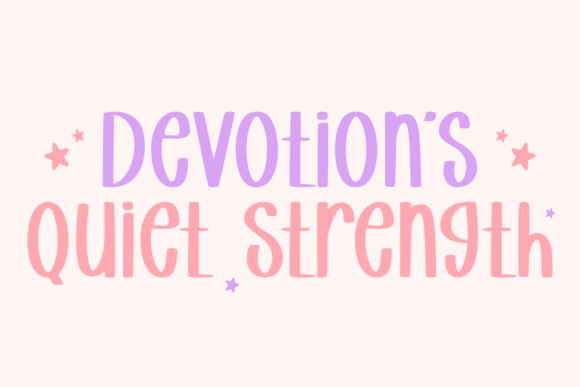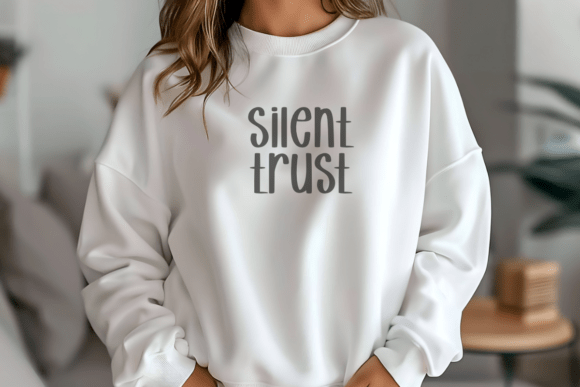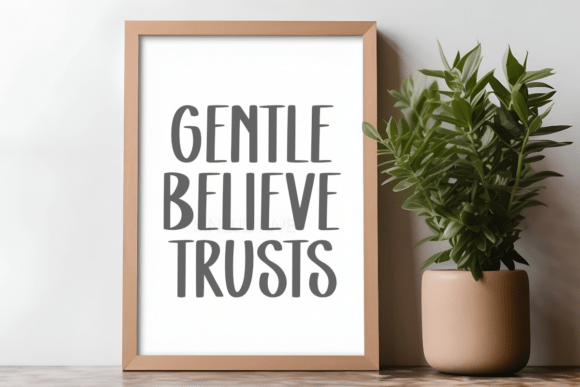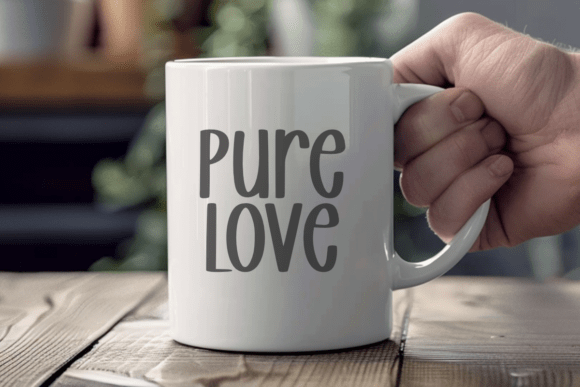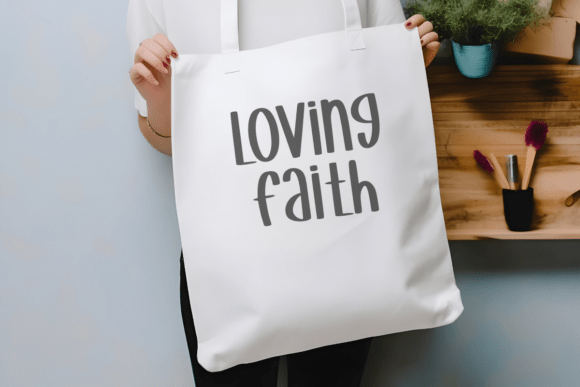
Introducing Blindly Beloved Font: The Perfect Handwritten Sans Serif for Creative Projects
Are you a designer, crafter, or DIY enthusiast looking for a fun and cute font to add a personal touch to your projects? Look no further than Blindly Beloved, a charming handwritten sans serif font that’s perfect for a wide range of creative applications. In this article, we’ll explore the features and benefits of Blindly Beloved, and show you how to make the most of this versatile font.
What is Blindly Beloved Font?
Blindly Beloved is a carefully crafted handwritten sans serif font that’s designed to bring a touch of whimsy and personality to your projects. Its clean and simple lines make it easy to read, while its playful curves and irregularities give it a delightfully human feel. Whether you’re creating memos, journals, notes, or planners, Blindly Beloved is the perfect choice for adding a dash of fun and creativity.
Blindly Beloved is an incredibly versatile font that can be used for a wide range of projects, including:
- Memos and notes
- Journals and planners
- Interior KDPs and cards
- Teacher and greeting cards
- Invitations and scrapbooks
- Paper and diary entries
- Printable notes and low-content books
- Daily planners and notepads
- Calendars and to-do lists
- Sheets and workbooks
- Monthly and weekly planners
- Journal templates and notebook paper
- KDP interiors and templates
Why Choose Blindly Beloved Font?
So why should you choose Blindly Beloved for your next project? Here are just a few reasons:
- Unique and eye-catching: Blindly Beloved is a one-of-a-kind font that’s sure to grab attention and add a touch of personality to your projects.
- Easy to read: Despite its playful curves and irregularities, Blindly Beloved is incredibly easy to read, making it perfect for body text and longer passages.
- Versatile: Blindly Beloved can be used for a wide range of projects, from digital documents to print materials.
- Cute and fun: Let’s face it – Blindly Beloved is just plain cute! It’s the perfect choice for adding a touch of whimsy and fun to your projects.
Tips for Using Blindly Beloved Font
Here are a few tips for getting the most out of Blindly Beloved:
- Experiment with sizes: Blindly Beloved looks great in a range of sizes, from small body text to large headings.
- Mix and match: Try pairing Blindly Beloved with other fonts for a unique and eye-catching look.
- Add embellishments: Consider adding embellishments like doodles or graphics to give your projects an extra touch of personality.
- Use it for titles and headings: Blindly Beloved is perfect for titles and headings, where its playful curves and irregularities can really shine.
Blindly Beloved is a fun, cute, and versatile handwritten sans serif font that’s perfect for a wide range of creative projects. Its unique and eye-catching design makes it sure to grab attention, while its ease of use and versatility make it a great choice for designers and crafters of all levels. Whether you’re creating memos, journals, notes, or planners, Blindly Beloved is the perfect choice for adding a touch of personality and whimsy to your projects.